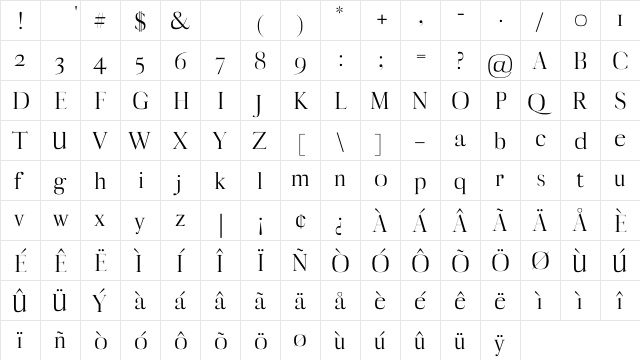
Myron Regular
| Foundry | Creativetacos |
| Designer | Mohammad Ahsan |
Design Context for Myron Typeface
Myron takes a measured approach to typography — its balanced proportions and neutral character make it a reliable workhorse for both digital and print work.